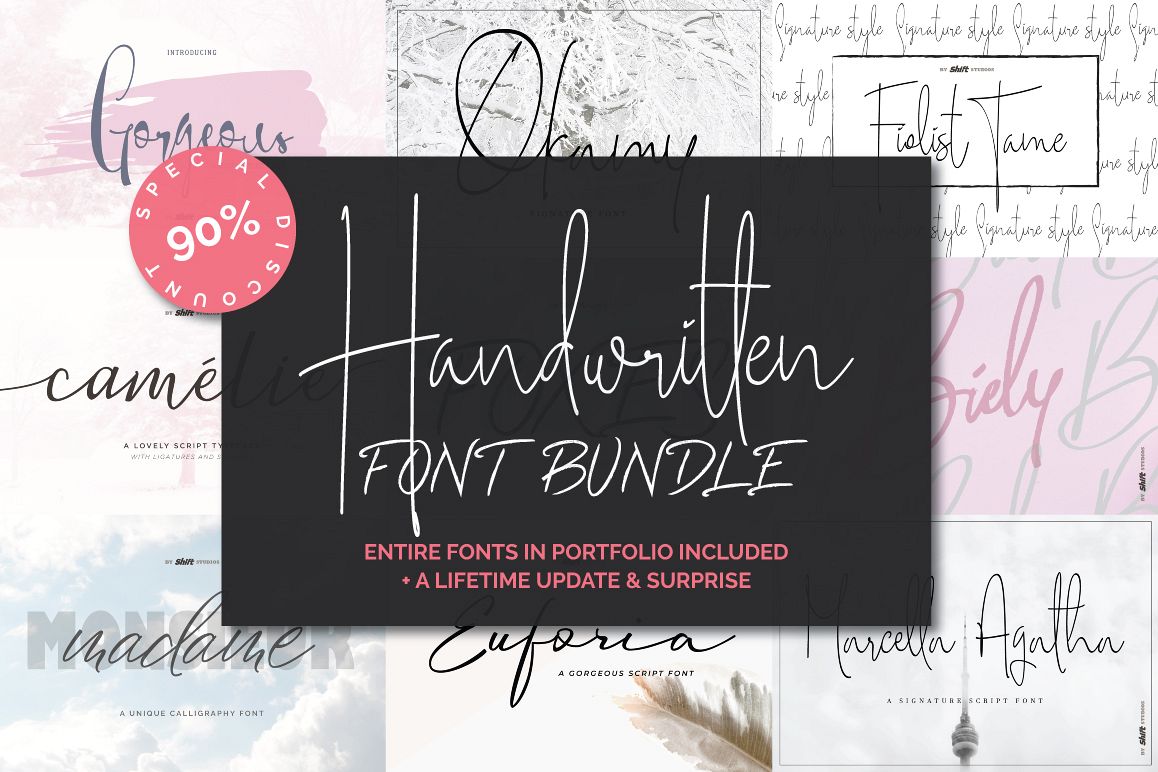
Handwritten Font Bundle
This bundle is perfect for displays, headers, invitations, blogs, poster and so much more, Gorgeous will become a bouncy essential in your font collection! Moreover, this script and handwritten font specifically established for real abstract handwriting looks and perfect also for A-Z signature in your special branding.
All the typefaces:
-     Marcella Agatha
-     Okamy
-     Fiolist Tame
-     Biely
-     Gorgeous
-     Camelie
-     Madame
-     Foxes
-     Euforia
-     Mountain Peak